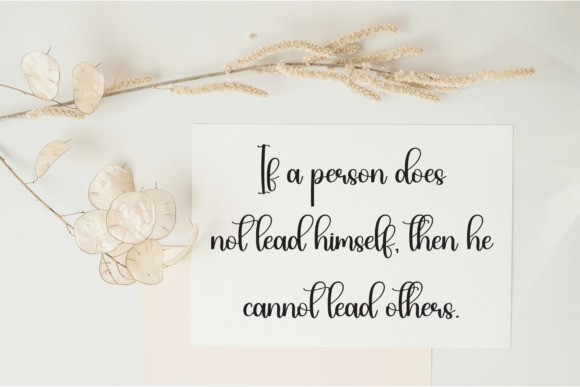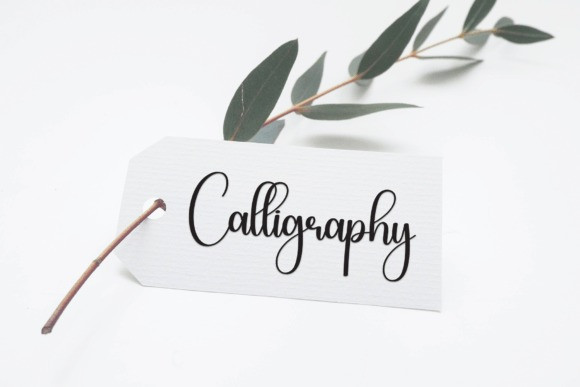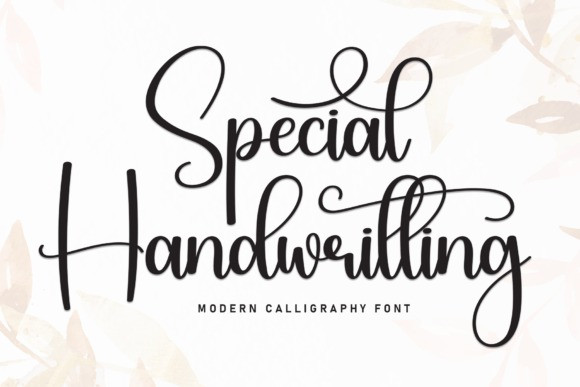
Special Handwritting Font
Special Handwritting Font is a sweet and friendly handwritten font. Its natural and unique style makes it incredibly fitting to a large pool of designs. The only limit is your imagination!